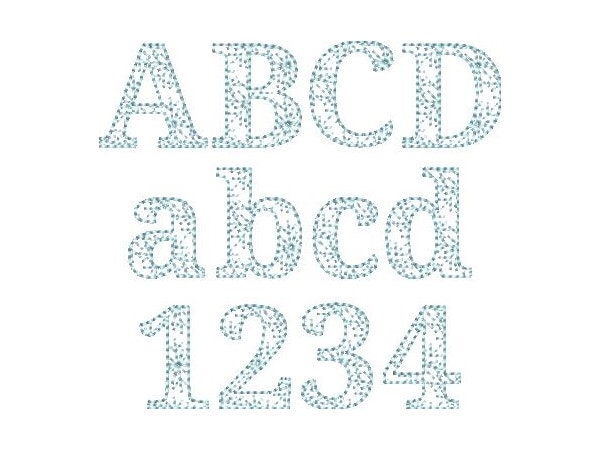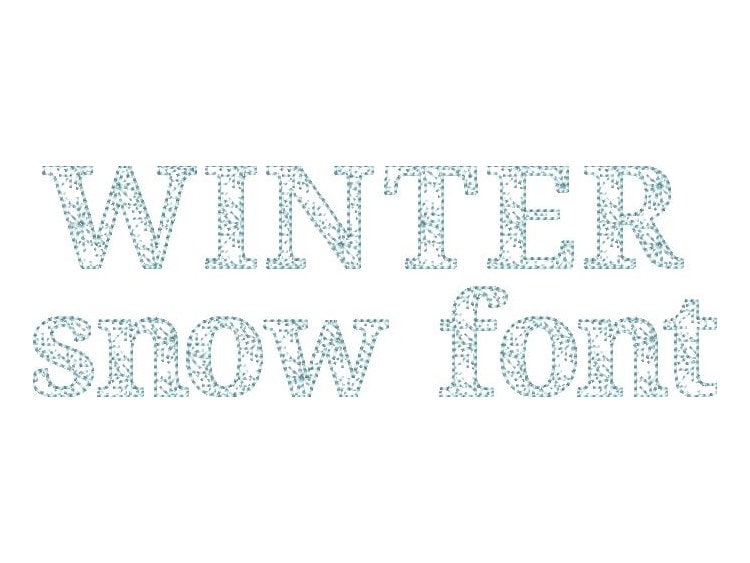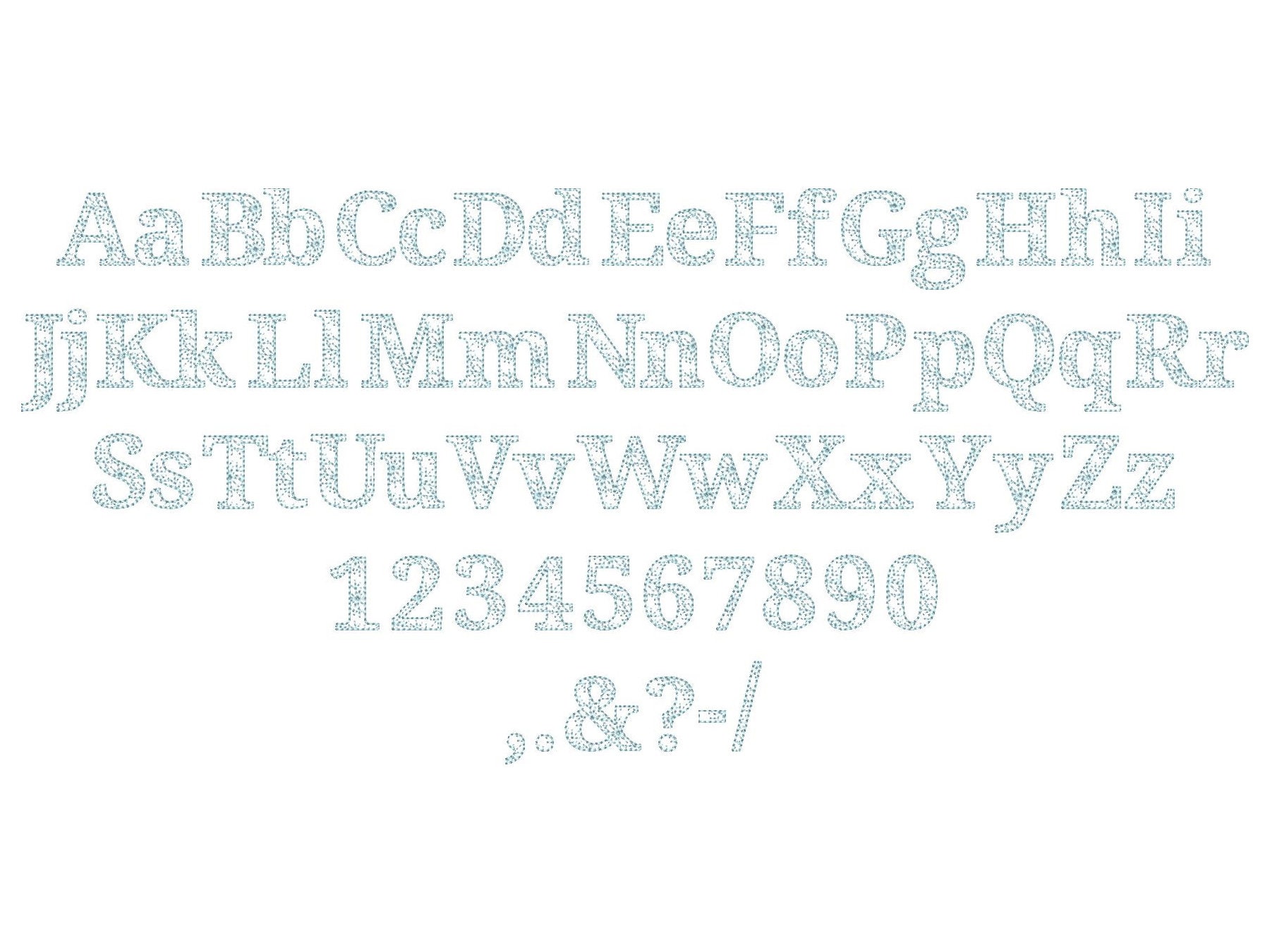
Winter Snow Snowflake Font light sketch outline machine embroidery designs, alphabet letters monogram mini sizes 0.7 up to 1.8 inches BX included
This is a quick stitch design, looks like laces, the background fabric looks through. Stunning effect.
Included uppercase and lowercase, numbers and special marks & . , - / ? !